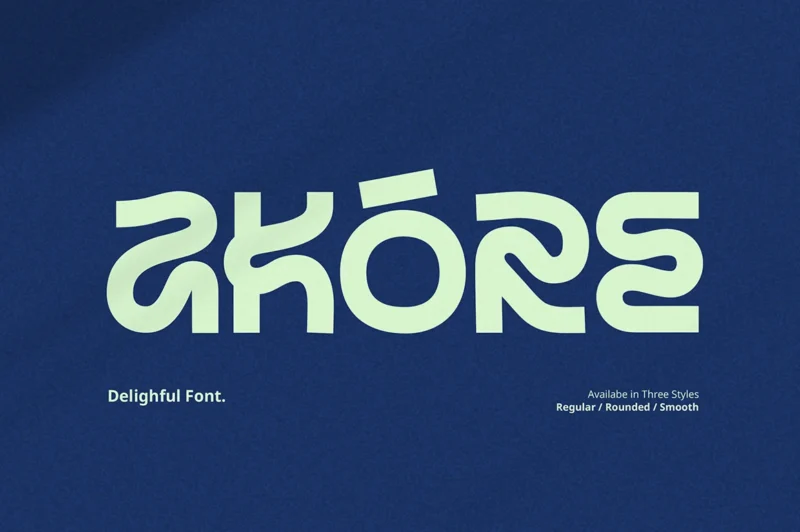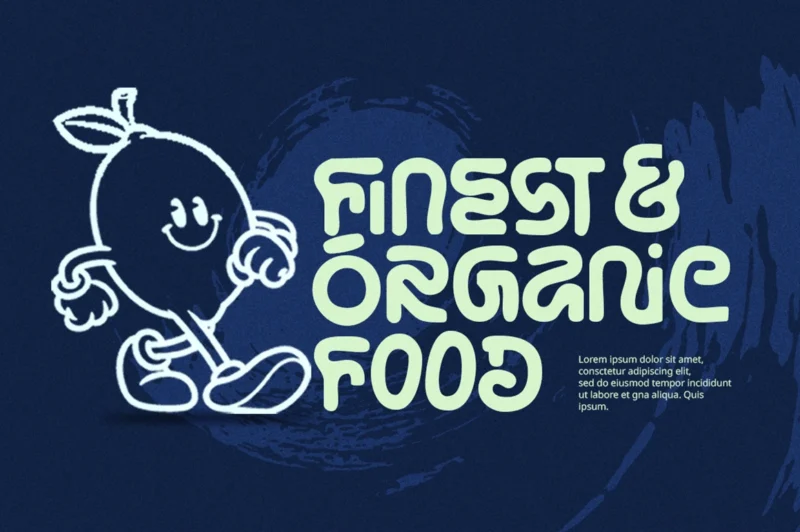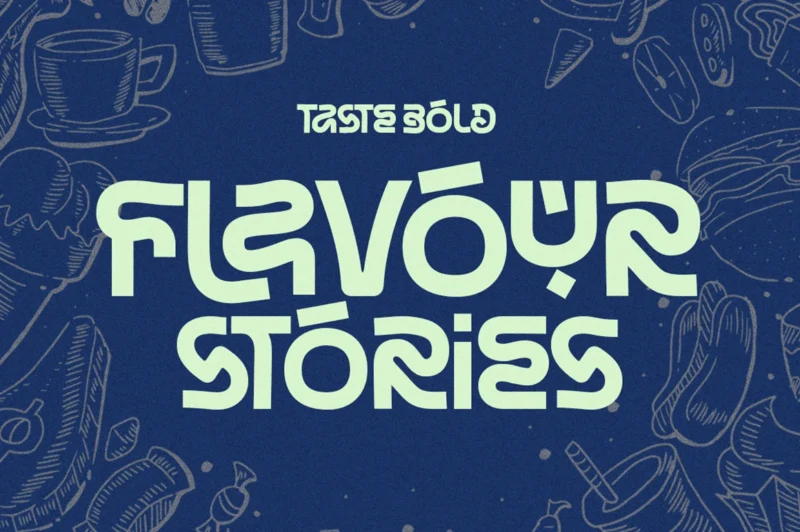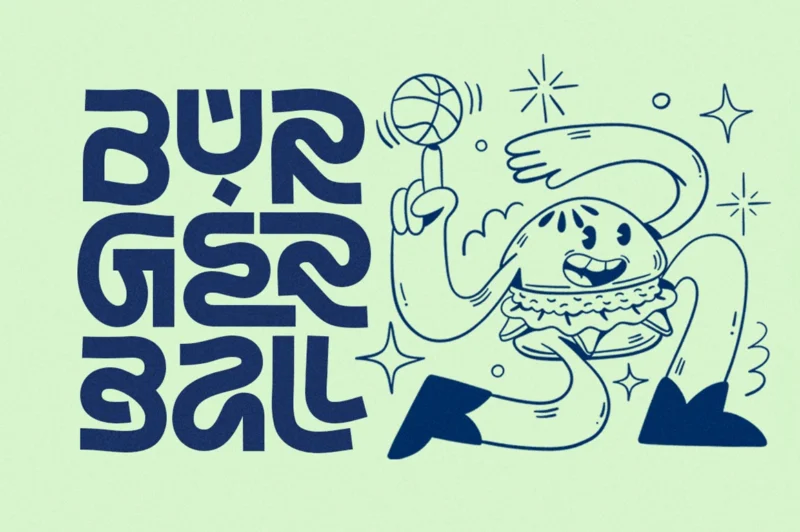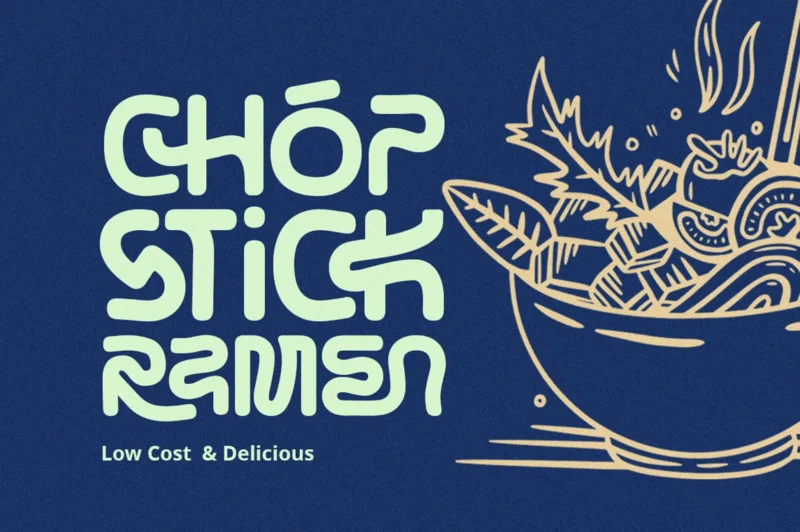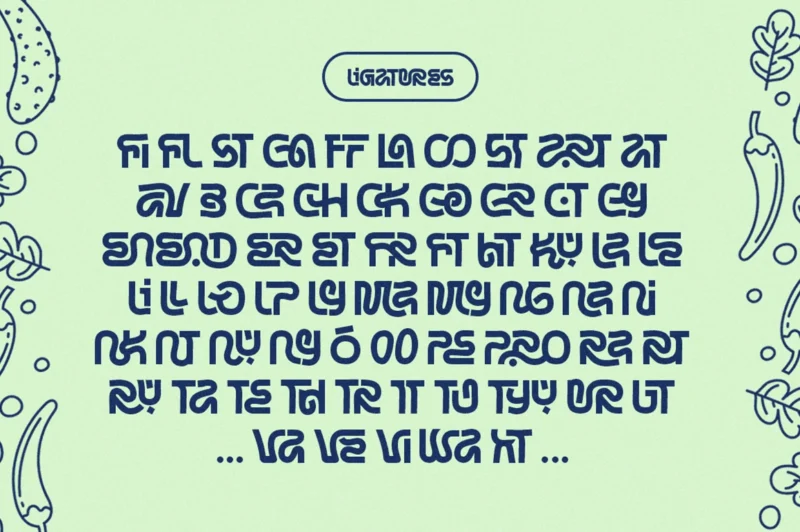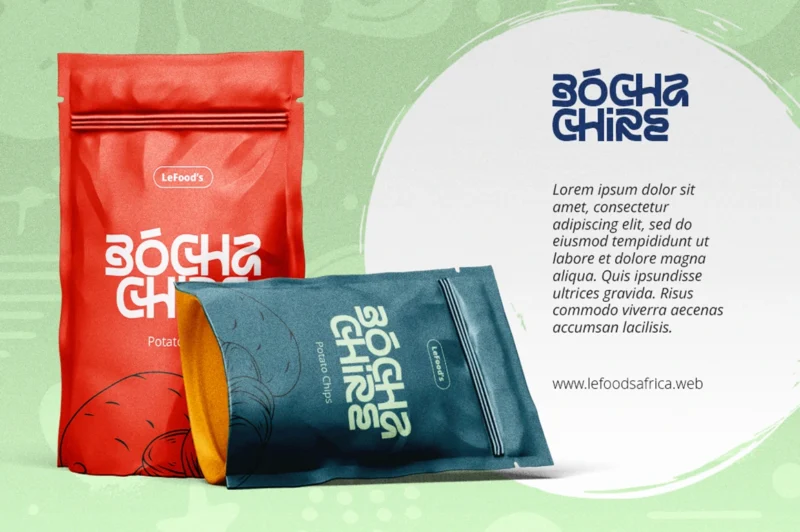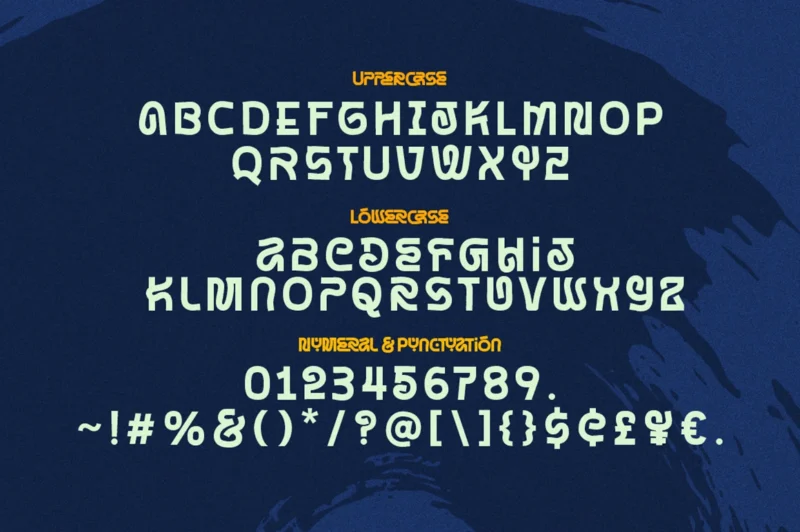
Akore Regular
Akore Rounded
Akore Smooth
Akore_ is where simplicity meets indulgence. Built with a bold monoline structure, this modern display decorative font delivers a smooth, confident rhythm that feels both refined and playful. Each curve is carefully shaped to create a flowing visual harmony, while its distinctive ligatures add unexpected twists that make every word feel custom-crafted. Akore isn’t just a typeface—it’s a flavor. Perfect for food banners design, logotypes, and branding that craves attention, it brings a tasteful balance of elegance and charm to your designs. With three expressive styles—**Regular, Rounded, and Smooth**—you can shift effortlessly from bold and clean to soft and inviting, making every composition feel fresh, stylish, and full of personality._
• Monoline Decorative Font
• All Caps Font
• Unique Ligatures
• Basic Latin Glyphs
• Modern and Playful
• Numeral and Punctuation
• Currencies
• Multilingual Support
Akore Typeface